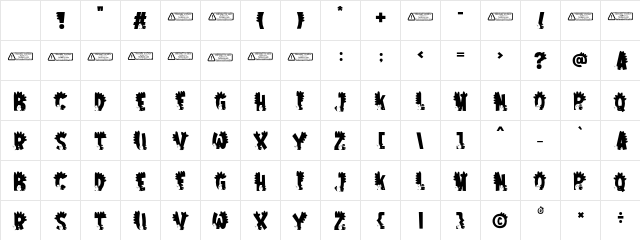
Dino Child PERSONAL USE ONLY! has an approachable, lighthearted character - its loose, expressive forms are well-suited to children's content, casual branding, and fun-first design.
Font Pairing: Pairs well with a rounded or humanist sans for body copy, maintaining the friendly tone without relying on Dino Child PERSONAL USE ONLY! to carry extended reading.
Pro Tip: Use Dino Child PERSONAL USE ONLY! at larger display sizes where its expressive character can land. Pair with a clean, simple sans for body copy to maintain readability.